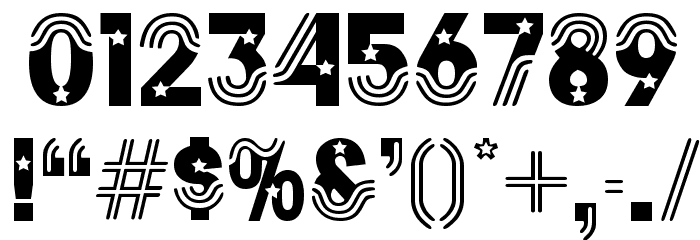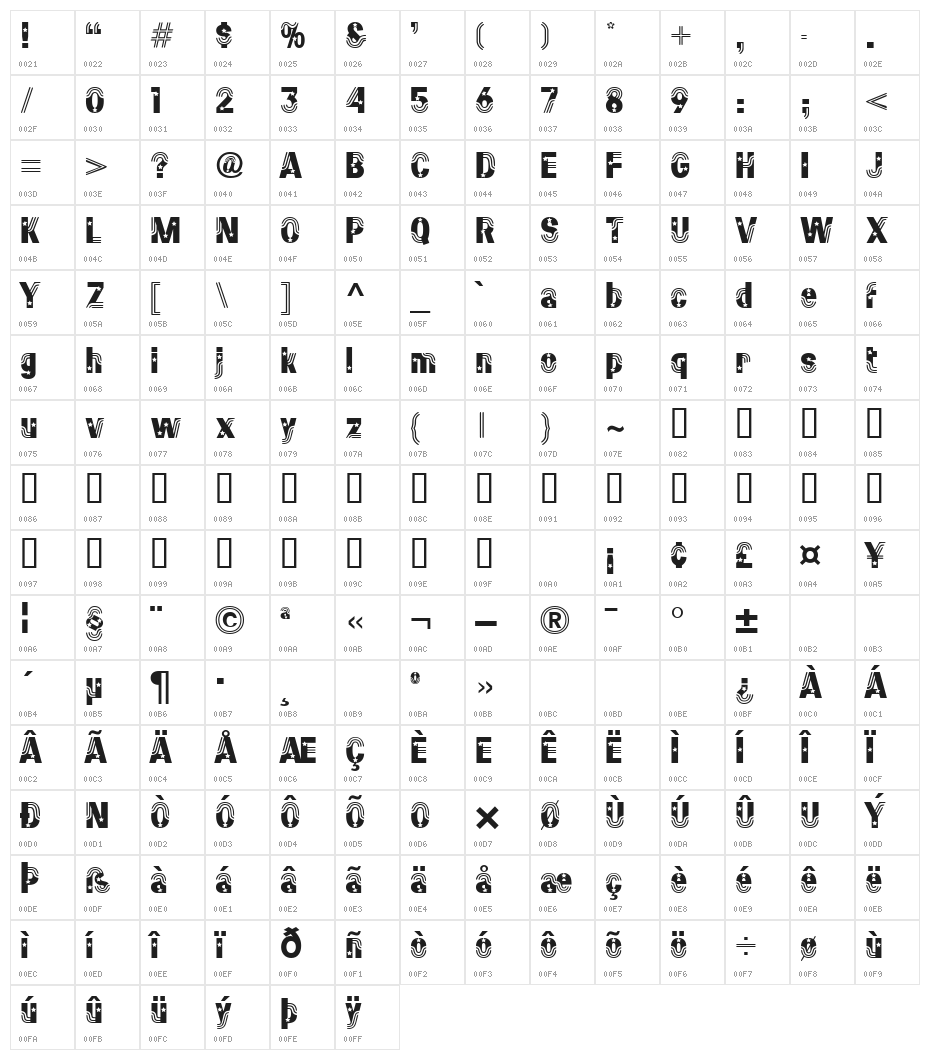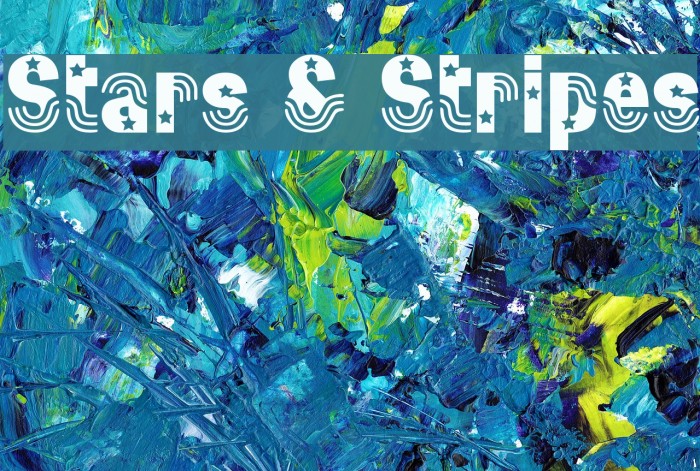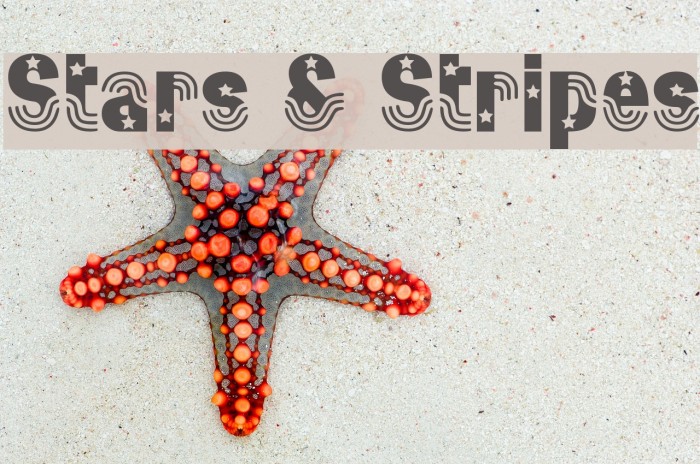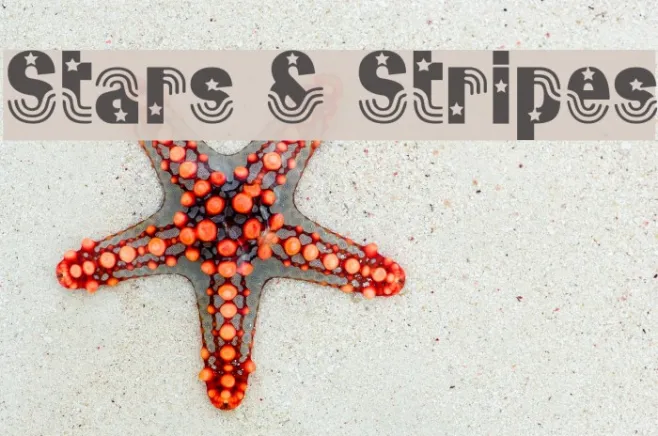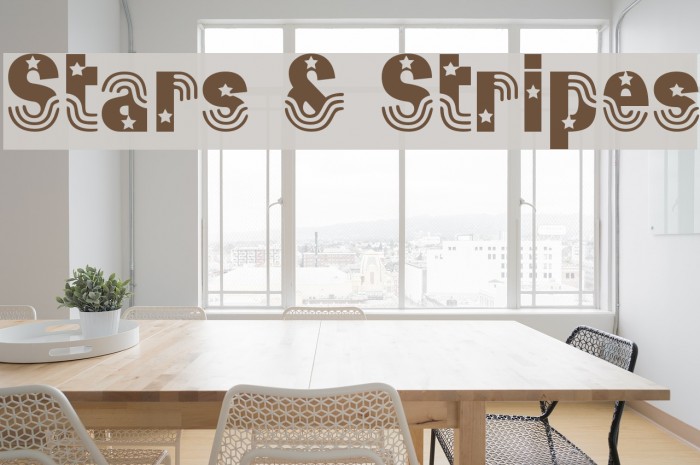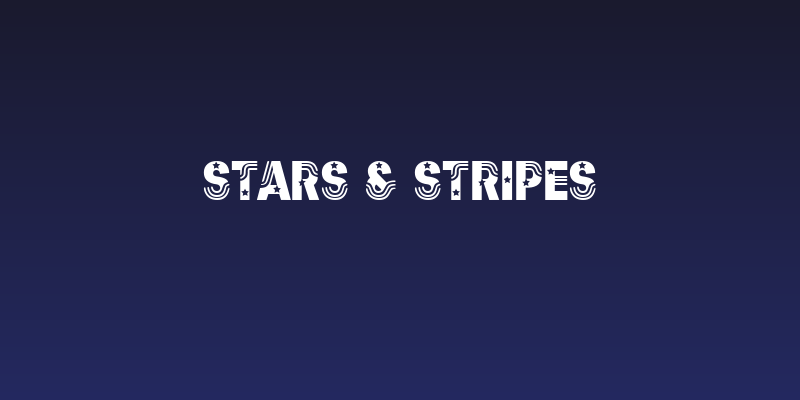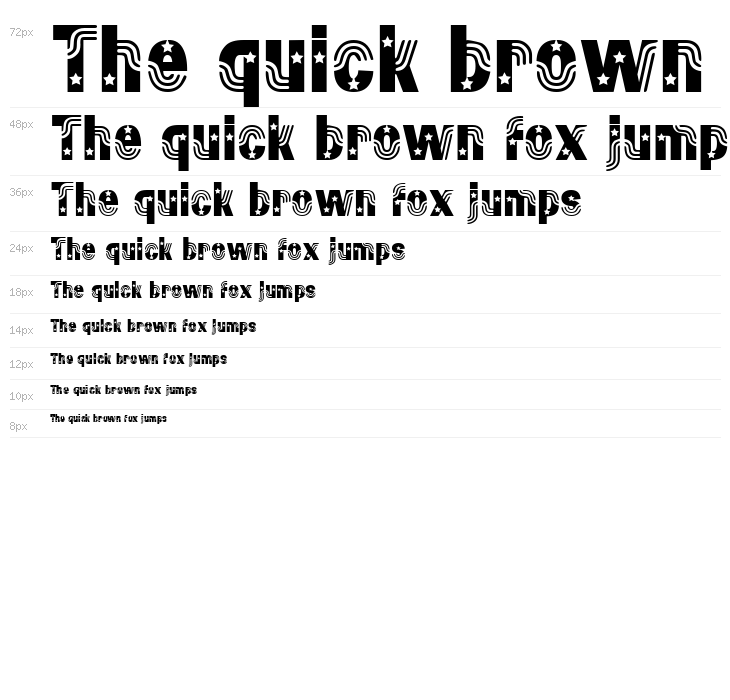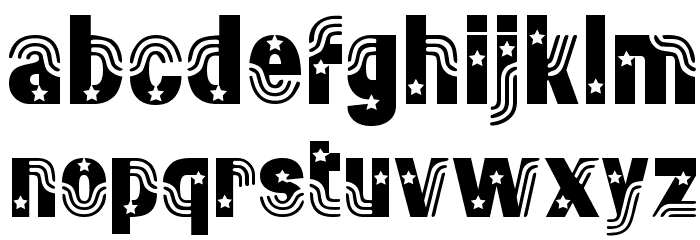
Stars & Stripes Font
Stars & Stripes Description
This font features a bold and decorative style with a patriotic theme, incorporating stars and stripes into each character. The uppercase and lowercase letters, as well as numbers and special characters, are adorned with stars and horizontal stripes, creating a visually striking and thematic appearance. The design is reminiscent of American iconography, making it ideal for projects that require a strong, nationalistic aesthetic. The boldness of the characters ensures high visibility, while the decorative elements add a unique flair.
| Proposed Projects | Perfect for use in posters, banners, and promotional materials for national holidays, patriotic events, or any project requiring a strong American theme. |